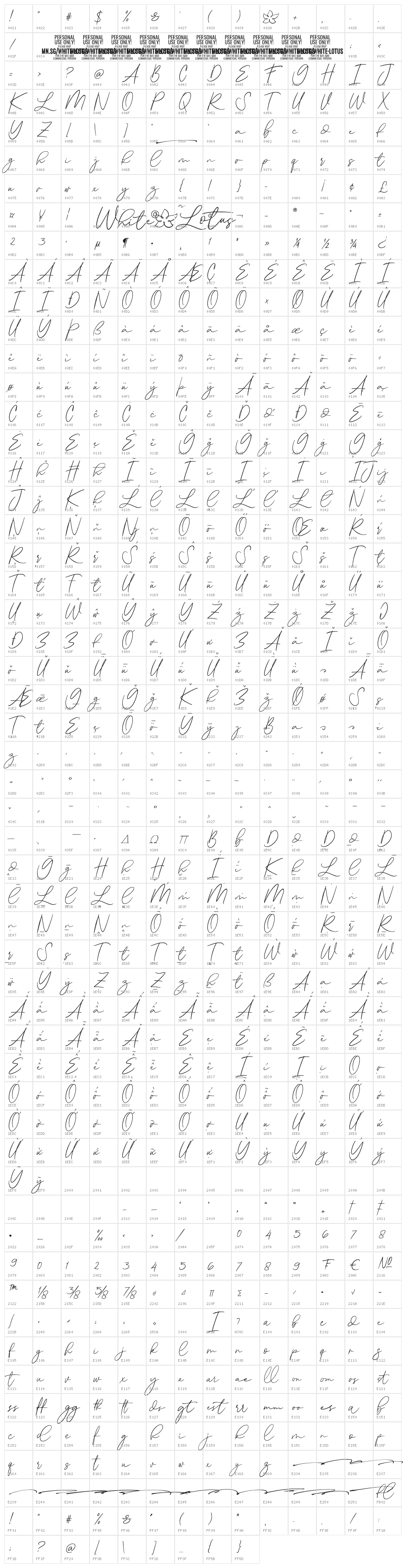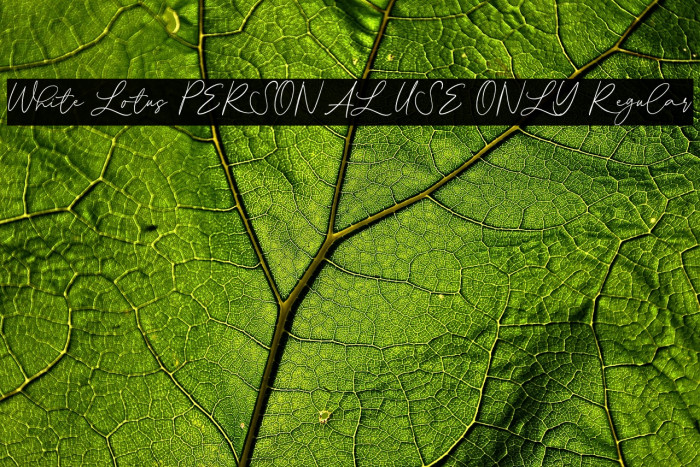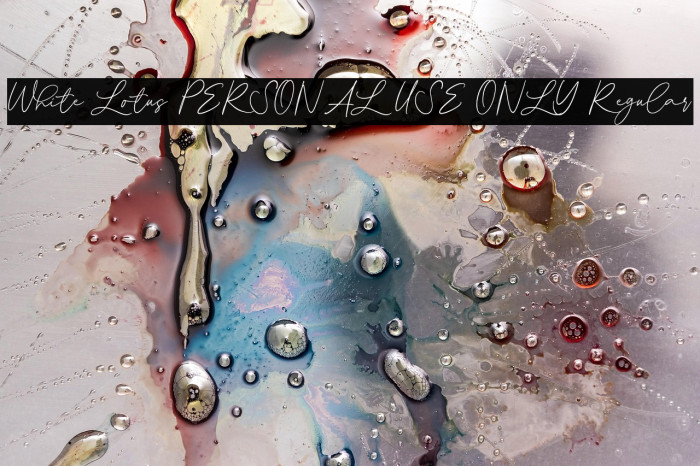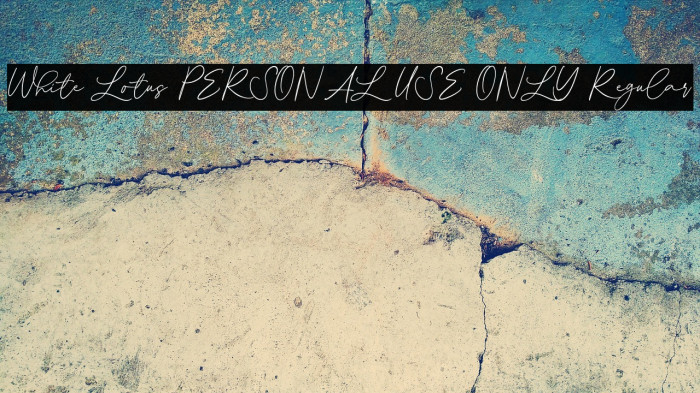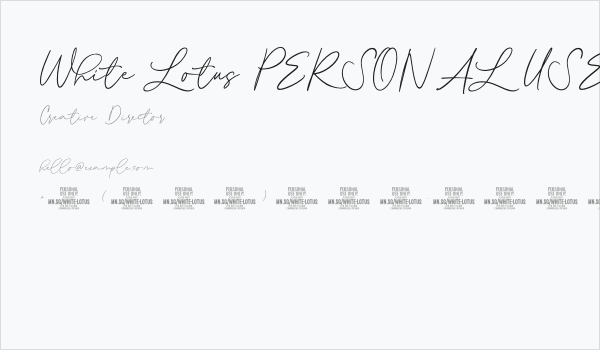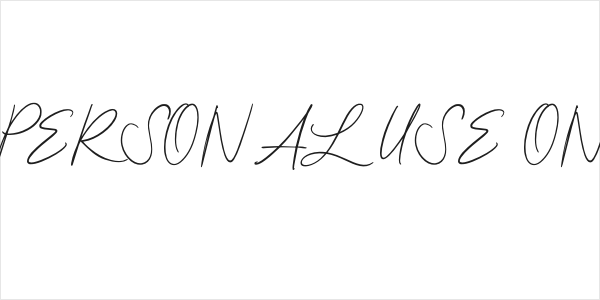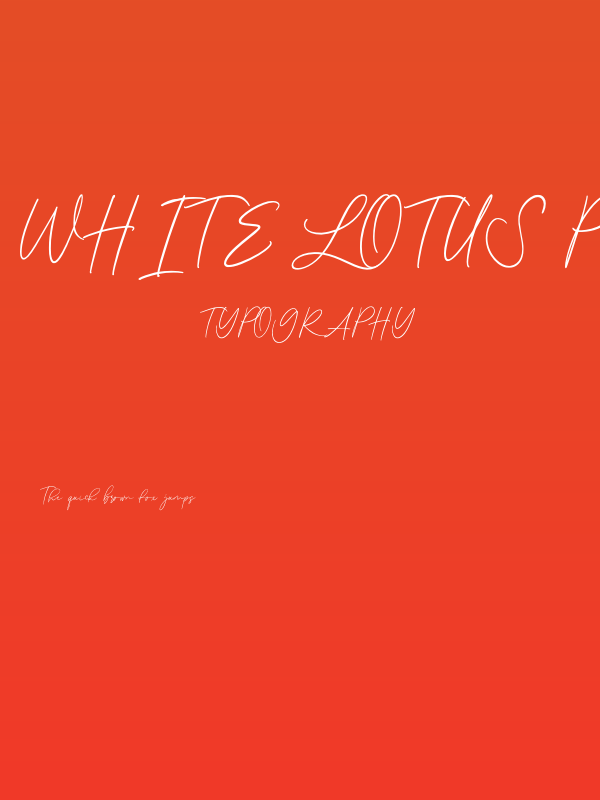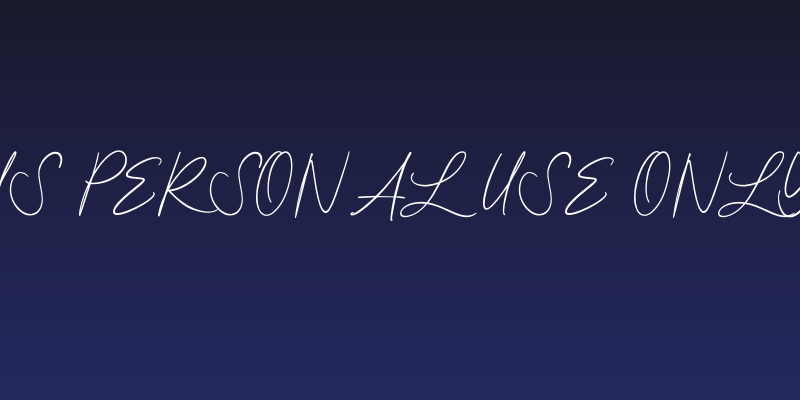
White Lotus PERSONAL USE ONLY Regular Font
White Lotus PERSONAL USE ONLY Regular Description
This font features a flowing, cursive style that exudes elegance and sophistication. The letters are connected in a smooth, continuous manner, giving it a handwritten appearance. The uppercase letters are tall and slender, while the lowercase letters maintain a consistent flow with slightly exaggerated loops and curves. The font has a delicate, airy feel due to its thin strokes and generous spacing between characters. It includes a full set of uppercase and lowercase letters, numbers, and a variety of special characters, making it versatile for various design needs.